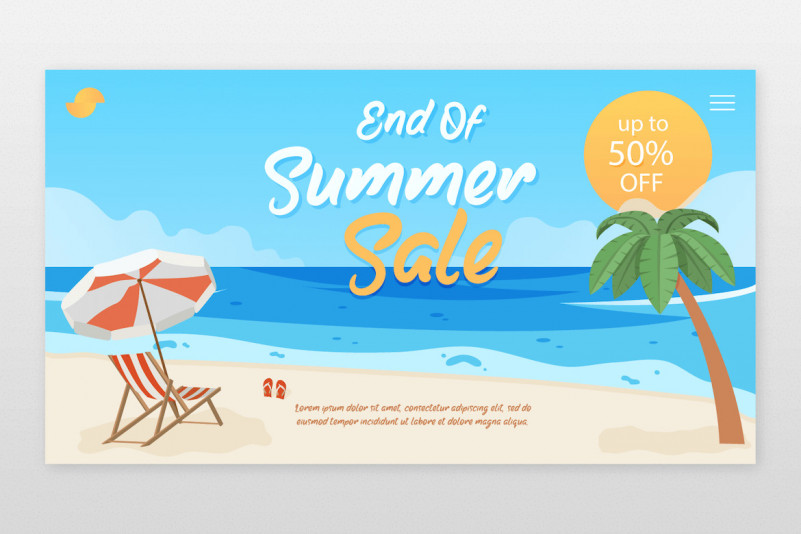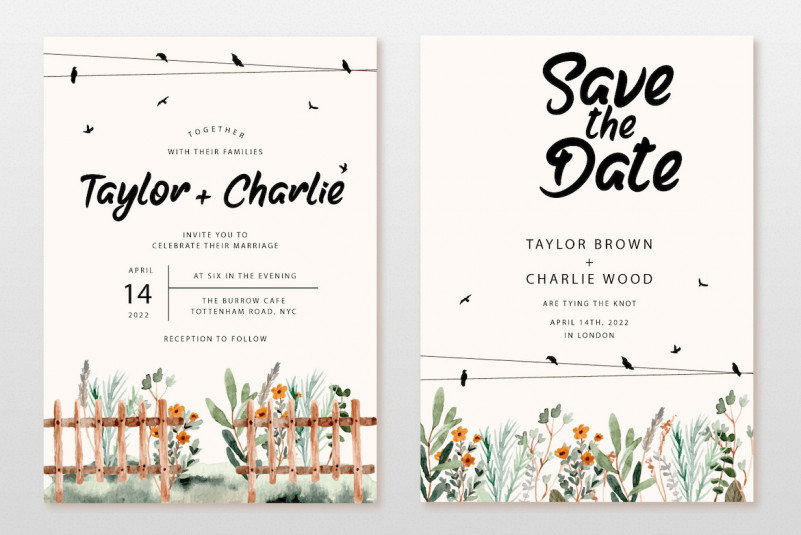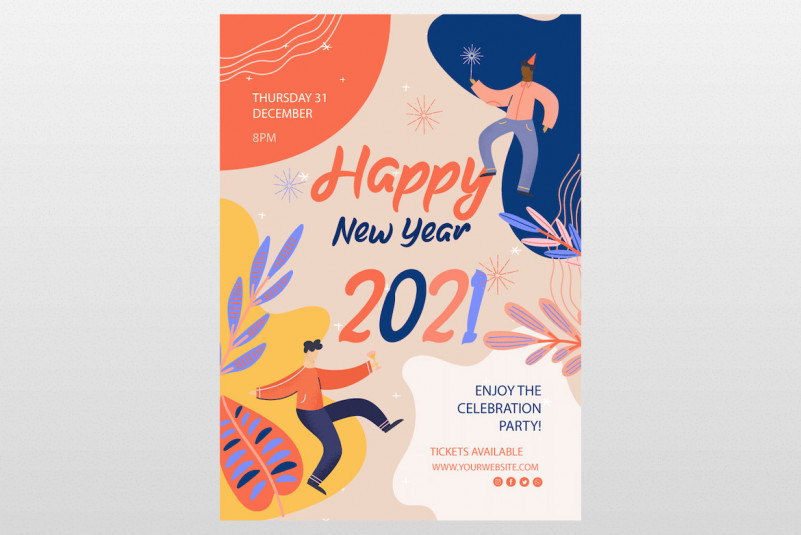
Dating Font
Dating Display Font
A font that is designed using a touch of a hand that is relaxed, yet beautiful and elegant, this font looks beautiful to use in the text and title of your extraordinary design project.
Dating Display Font is handwritten. This font has an original and extraordinary design. This font is perfect for strong text with displays for a wide variety of branding, advertisements, posters, banners, packaging, podcasts, outdoor activities, clothing, quotes, drinks, and more.